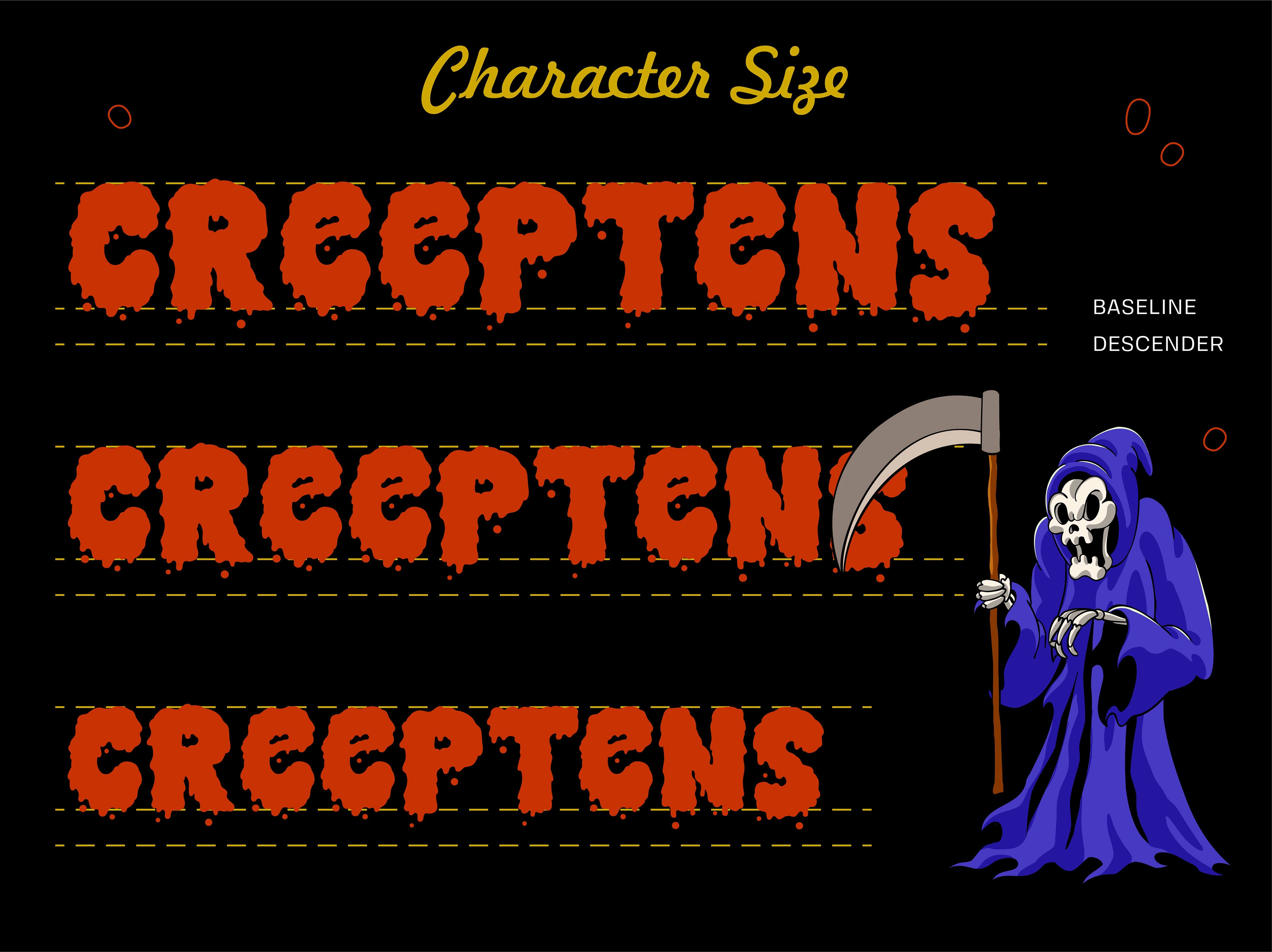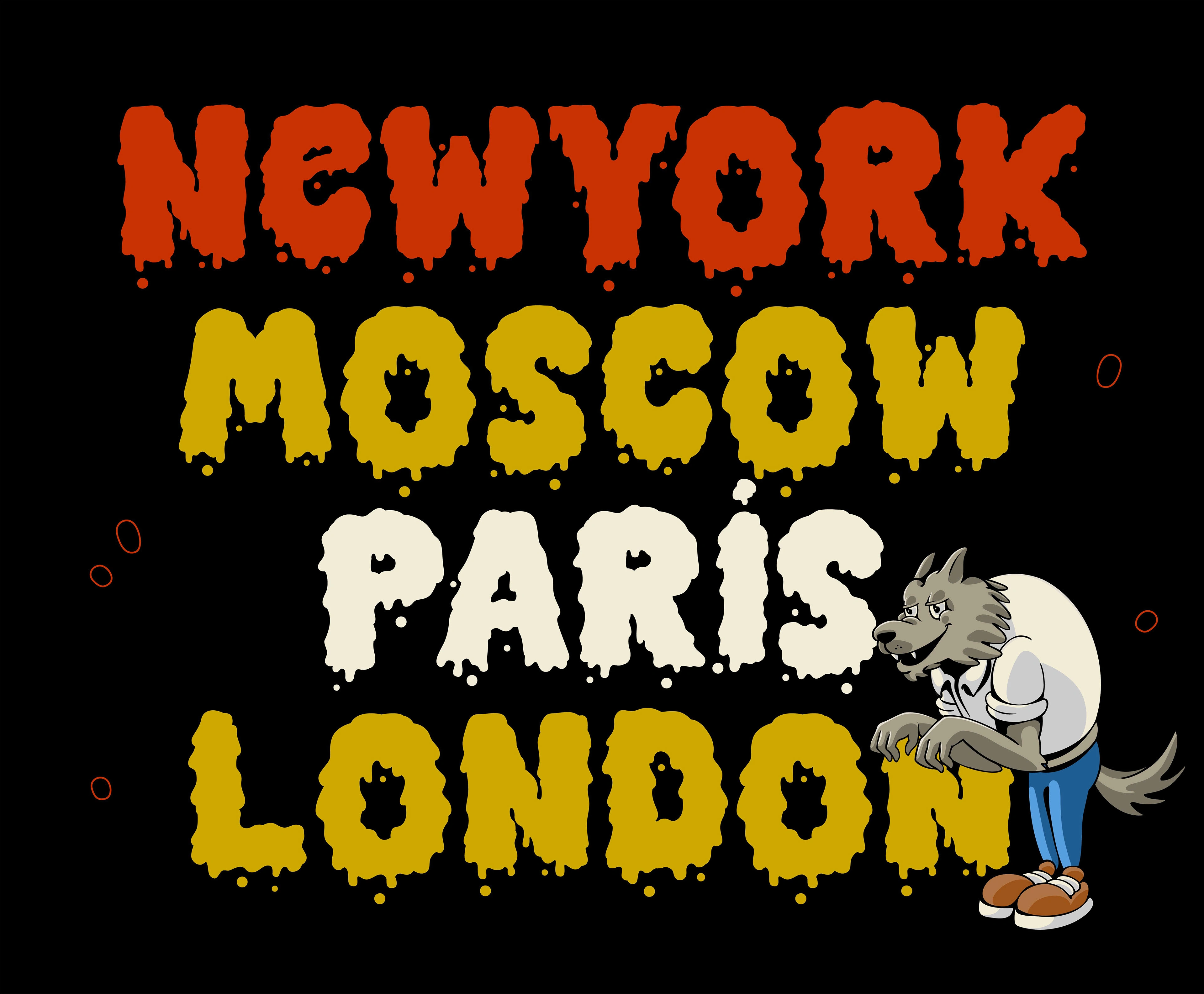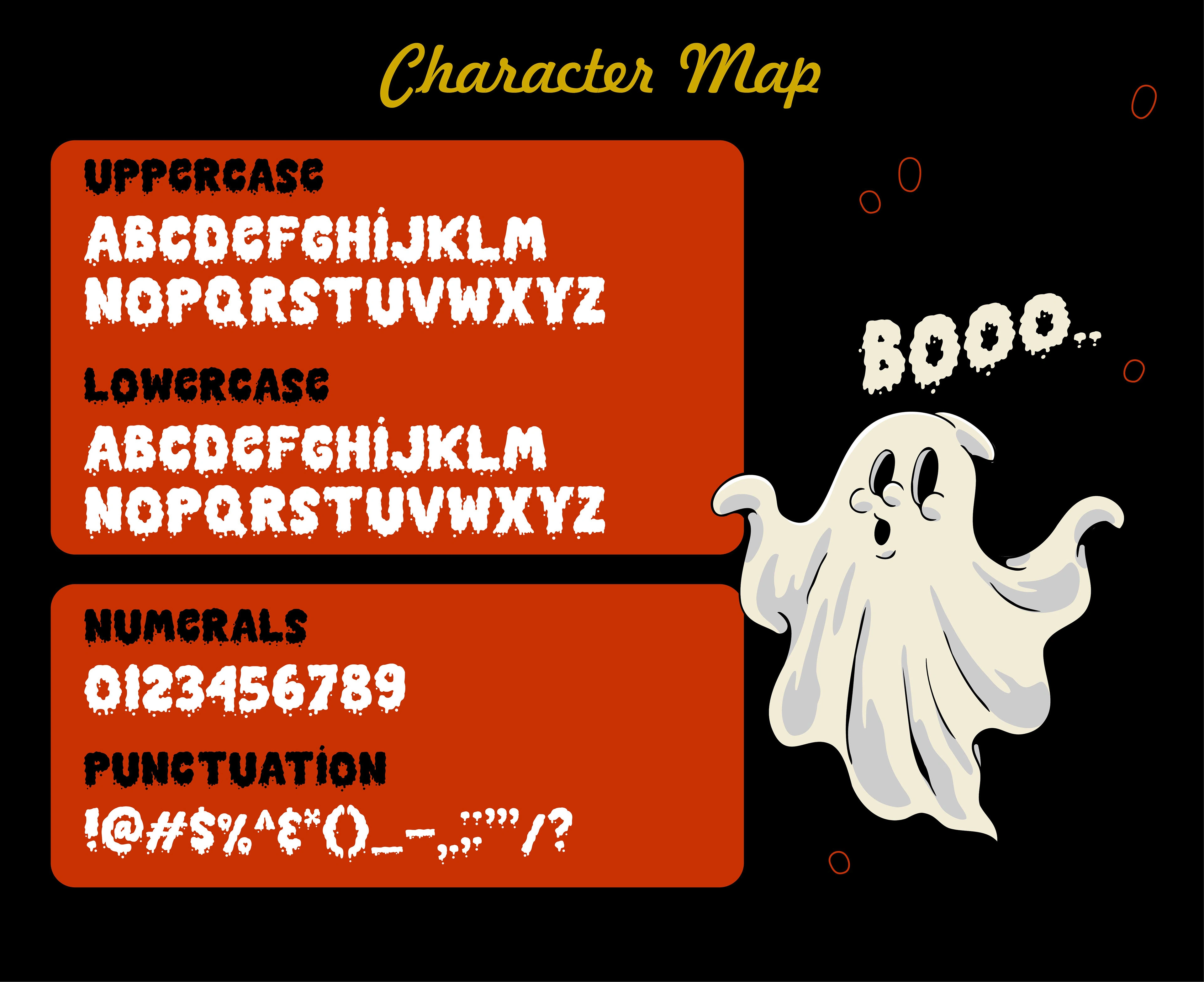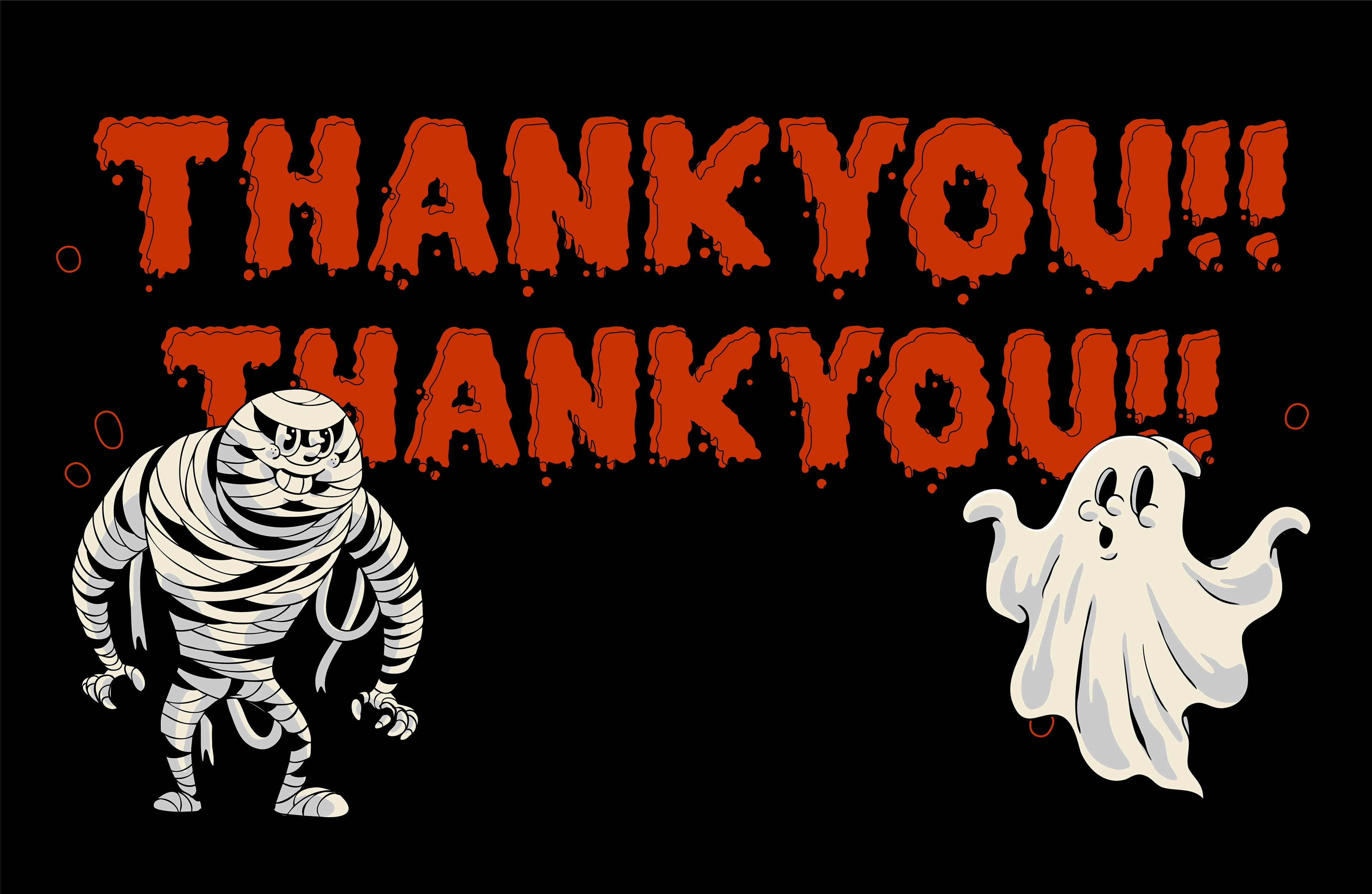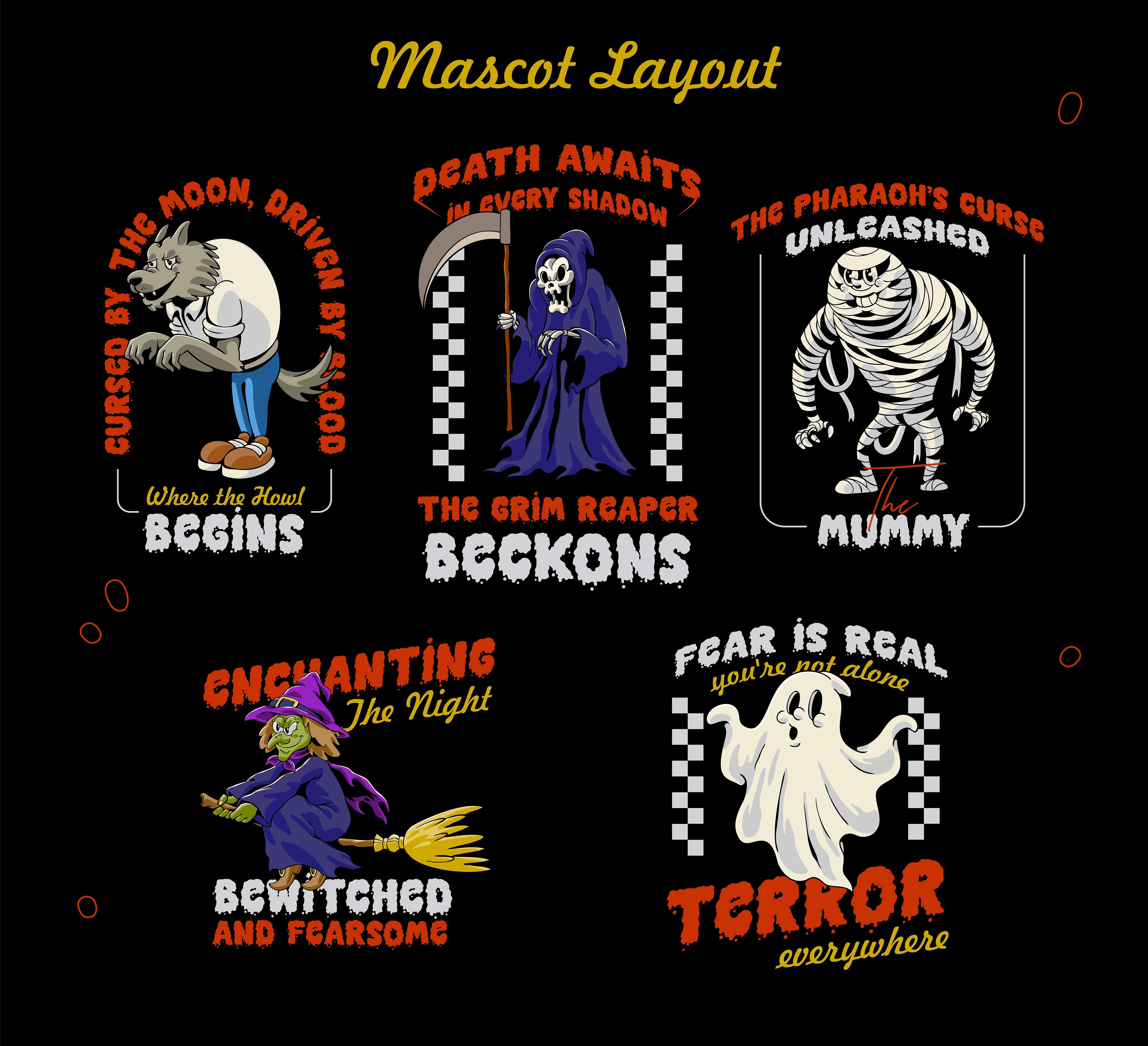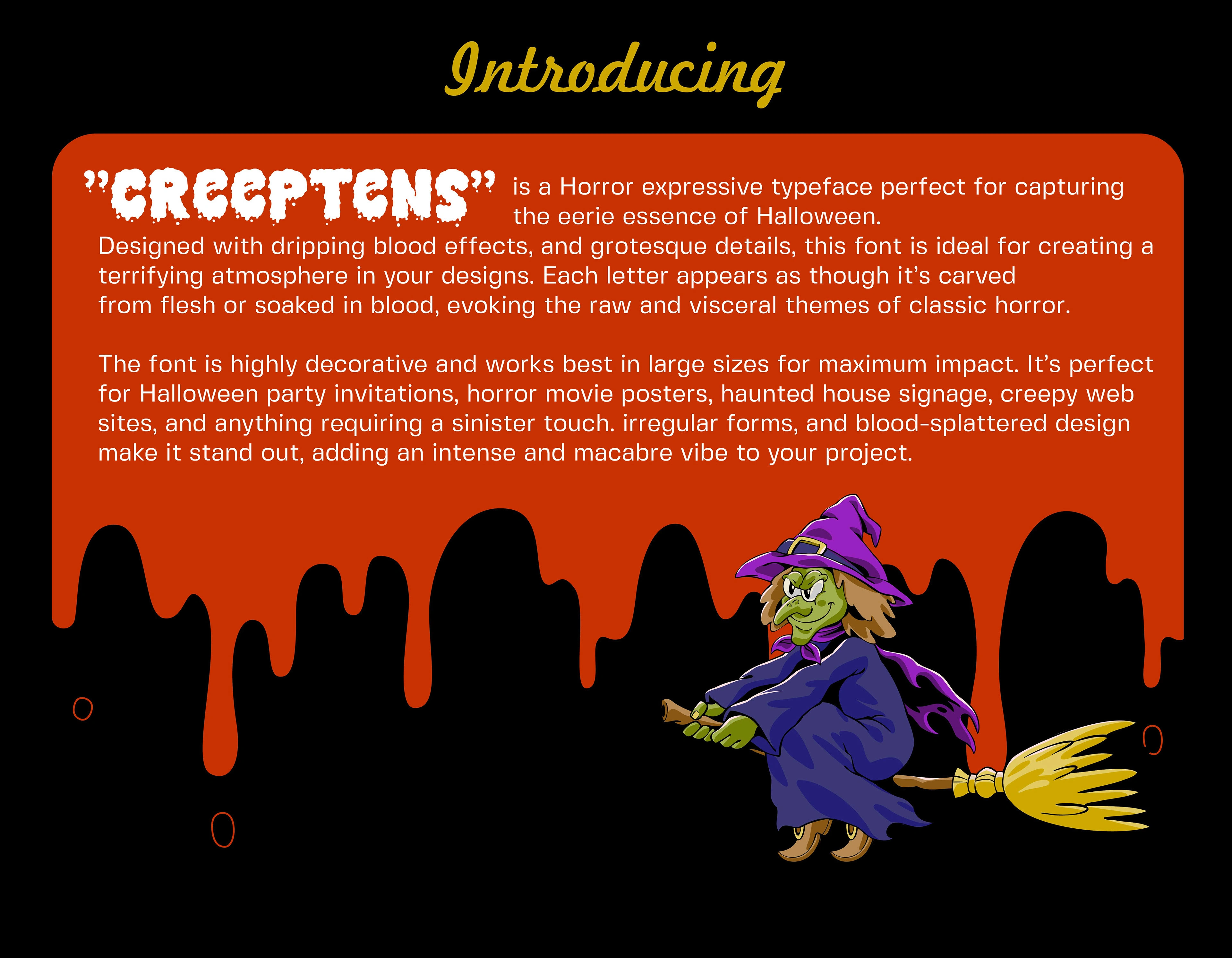
Creeptens is a Horror expressive typeface perfect for capturing the eerie essence of Halloween. Designed with dripping blood effects, and grotesque details, th…